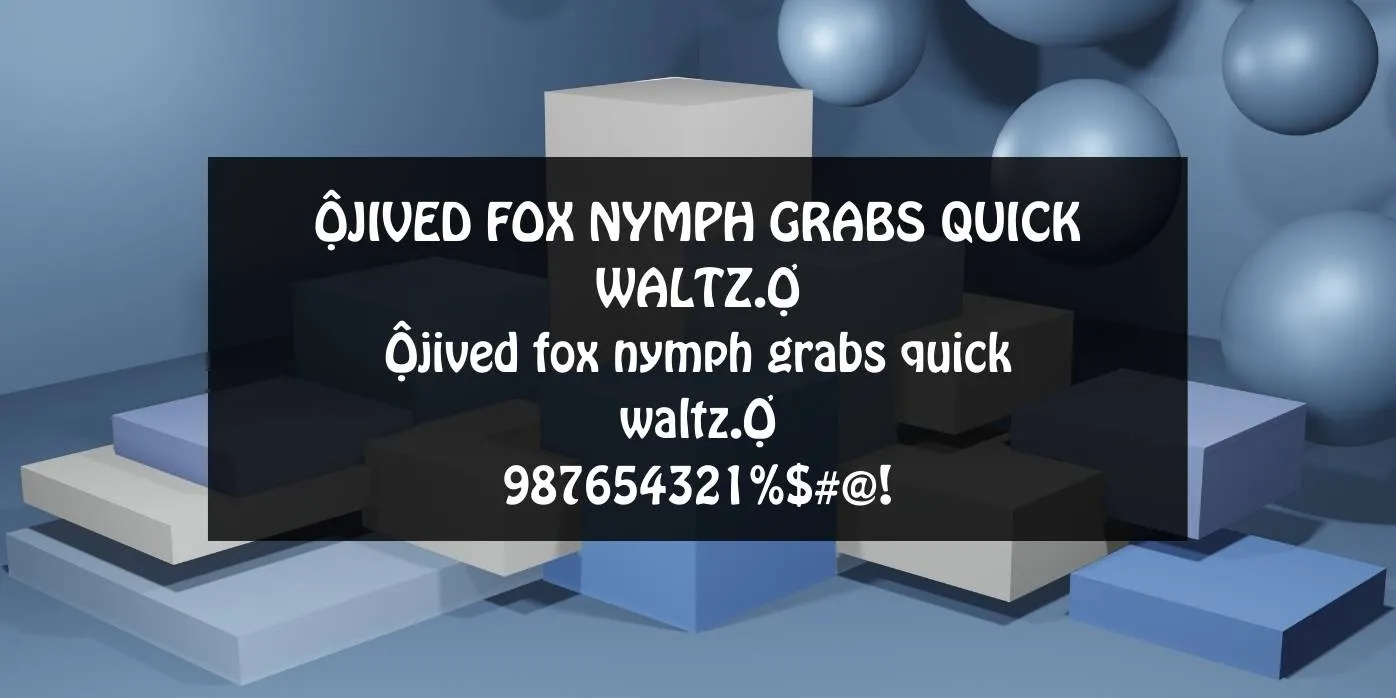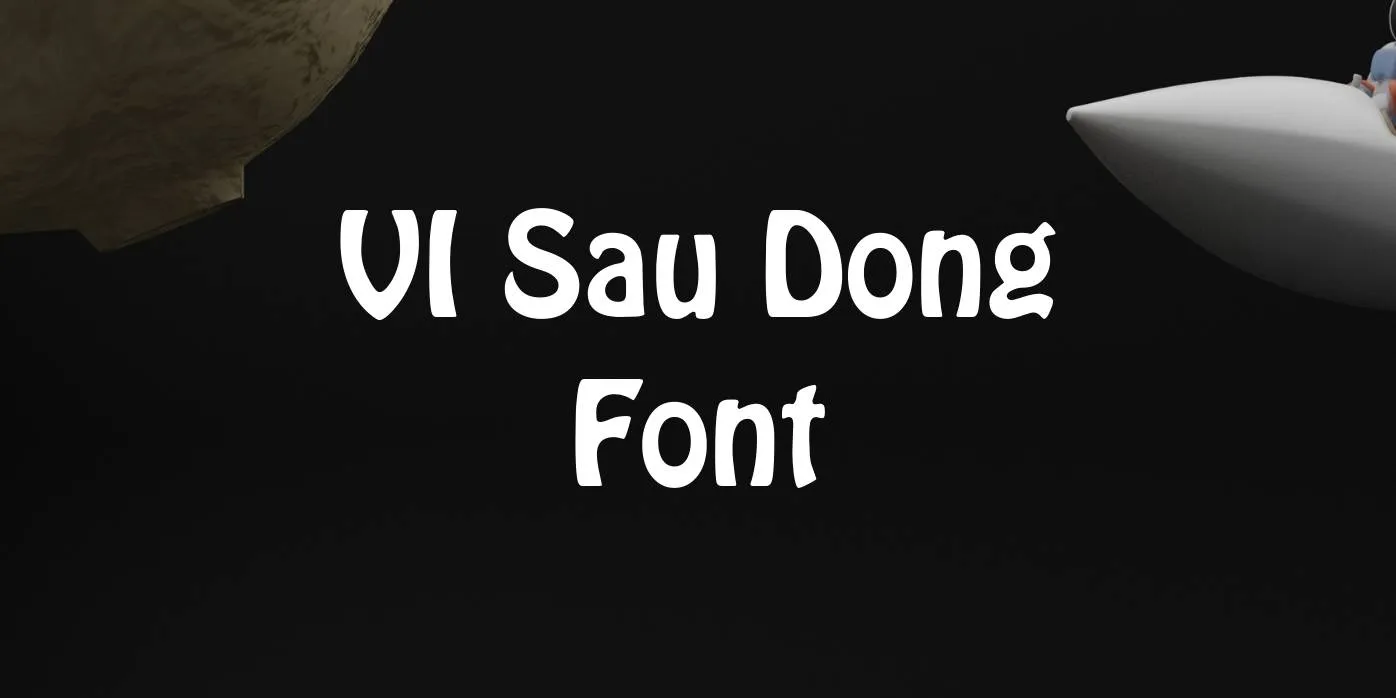
Vi Sau Dong Font
In this article, we introduce a stunning typeface known as Vi Sau Dong Font. This typeface belongs to the fancy family. The design of this typeface was inspired by the old Vietnamese lettering style. The name “Vi Sau Dong” means “wind and clouds”.
This typeface is perfect for headlines, posters, and other creative designs. It comes in two styles: regular and bold. Each style contains more than 100 glyphs. You can also the copy-and-paste function of this typeface.
This typeface package also includes a set of vector illustrations. It is perfect for CSS and Adobe. You can also use bosox font which is closest to this font family. If you are looking for a unique and stylish Typeface, then Vi Sau Dong Typeface is the perfect choice for you.